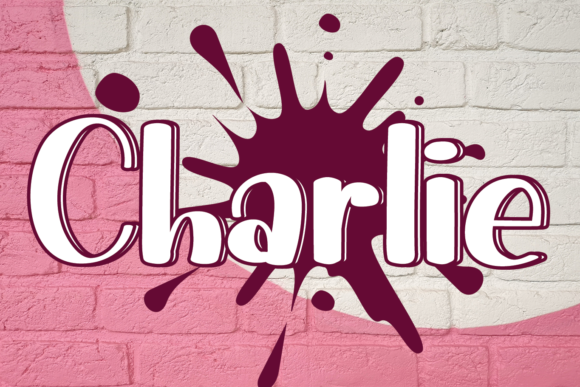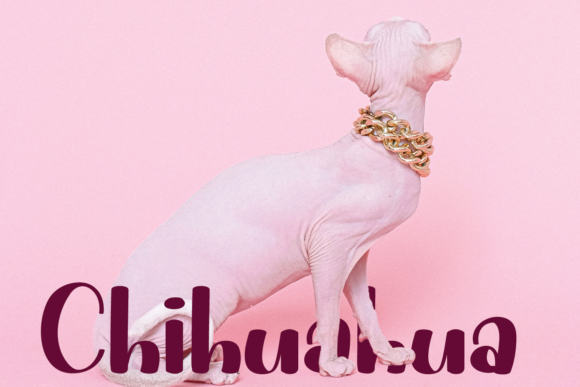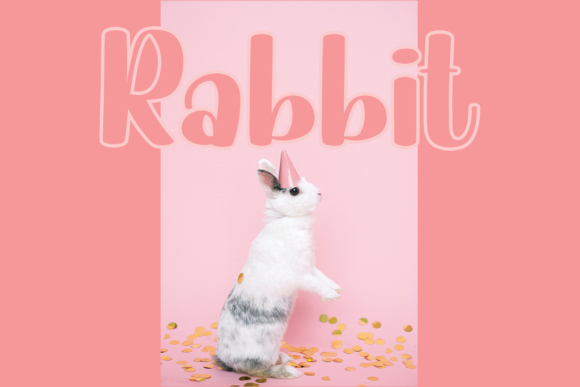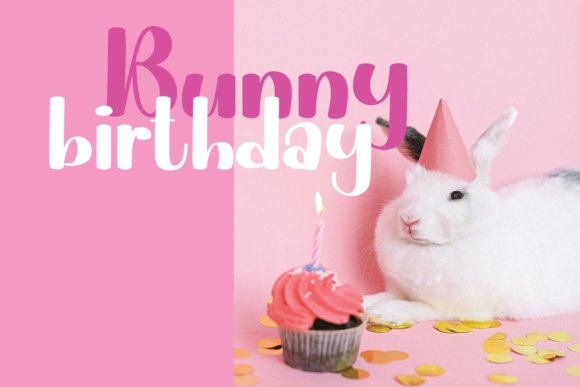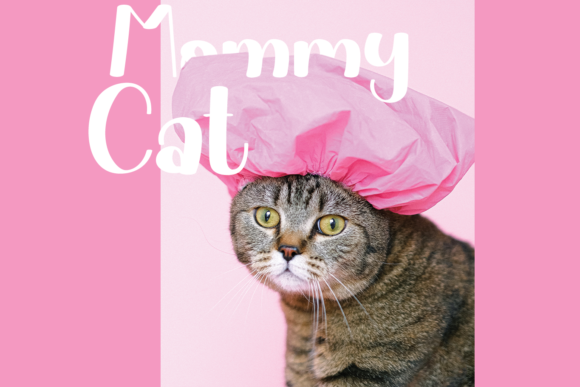
Discover the Quirky Charm of Charlie Font
You’ve spent hours staring at your computer screen, scrolling through design inspiration boards, and brainstorming ideas for your next project. But then, it hits you – that one moment of pure creative bliss when everything falls into place. You envision a bold, eye-catching headline that screams “I’m here, and I’m making a statement!” That’s where Charlie Font comes in – a quirky and chic lettered display font that’s sure to elevate your designs to the next level.
As a designer, you’re always on the lookout for versatile fonts that can be adapted to a wide range of projects. Charlie Font checks all the boxes, from fashion and lifestyle brands to art and music festivals. Its unique charm and character make it an instant conversation starter, guaranteed to grab attention and leave a lasting impression.
Charlie Font Key Features
- Unique Characteristics: Charlie Font features a distinctive, modern script style with a high level of customization options, making it suitable for various design applications.
Designer Review: Charlie Font
Overall, I was quite impressed with Charlie Font. Here are some of the things that stood out to me:
- ✨ Beautifully designed characters: The font features a sleek and modern design, making it perfect for a wide range of applications.
- ✨ Highly customizable: The font offers a range of customization options, including font sizes, line heights, and letter spacing, allowing designers to create unique and tailored designs.
- ✨ Excellent legibility: The font is highly legible, making it perfect for use in body text, headings, and even signage.
However, there are a few limitations that I noticed:
- ⚠️ Limited language support: While the font does support a range of languages, it may not be suitable for use in languages with complex scripts or character sets.
- ⚠️ Some font weights feel inconsistent: While the font offers a range of weights, some of the lighter weights feel a bit inconsistent with the rest of the font family.
Overall, I think Charlie Font is a great addition to any designer’s toolkit. While it may have some limitations, its beautiful design, high level of customizability, and excellent legibility make it a great choice for a wide range of applications.
Charlie Font is ideal for:
- Business cards and brochures
- Restaurant menus and signage
- Wedding and event branding